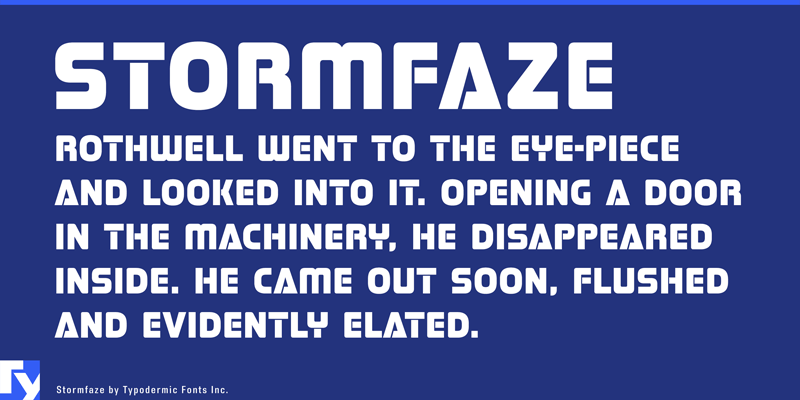
Stormfaze is a high-tech, science fiction themed headline font. Stormfaze was created in June of 1996 and released in the summer of 2015. This font includes a license that allows free commercial use: sometimes referred to as a desktop license. This allows you to install the font on a computer and use it to create posters, web graphics, game graphics, t-shirts, videos, signs, logos and more. Read the license agreement for details. If you'd like to embed this font in an app, ebook, on the web or anything that's not covered by the desktop license agreement, visit the link below. You'll find distributors who offer different types of licenses or you can contact me for help. http://typodermicfonts.com/stormfaze/ |